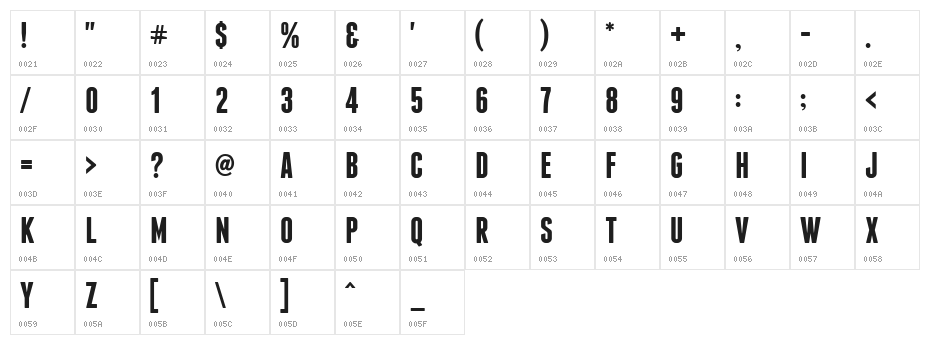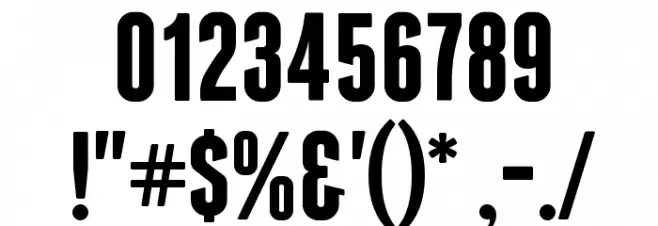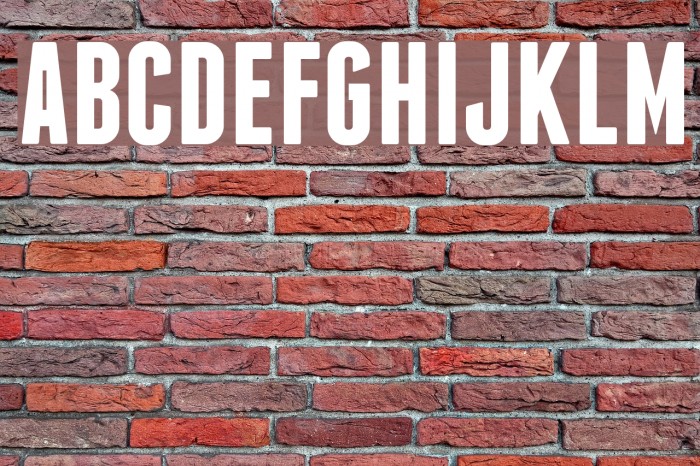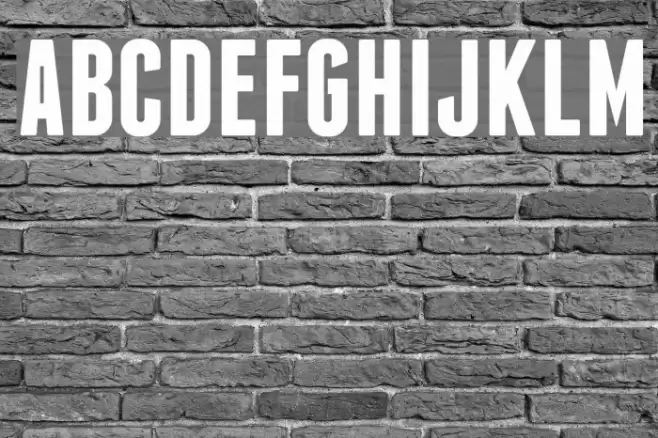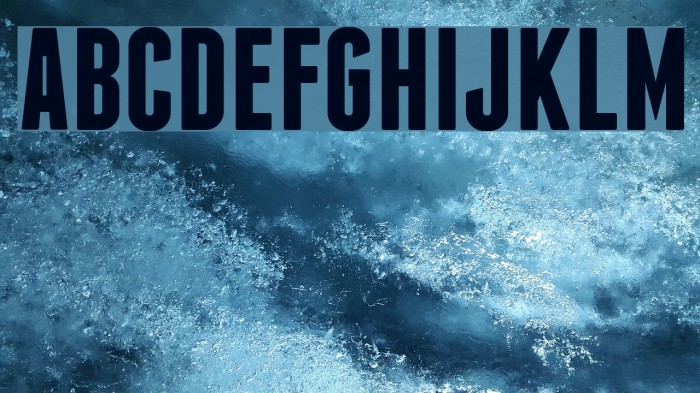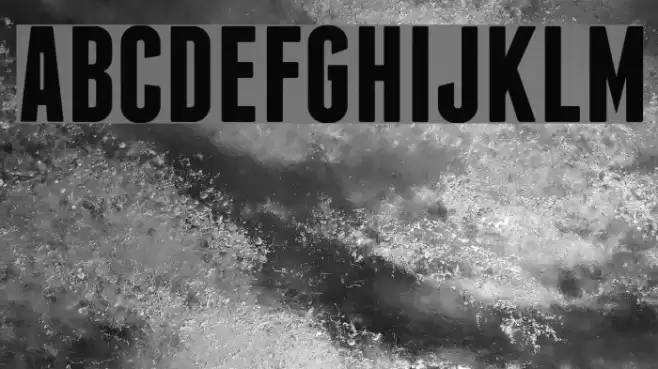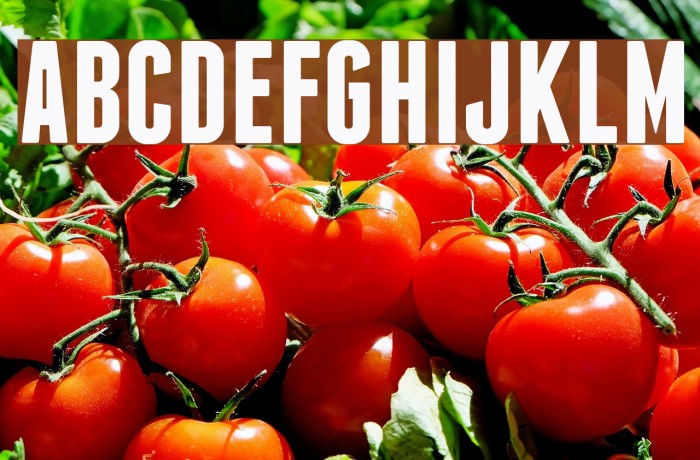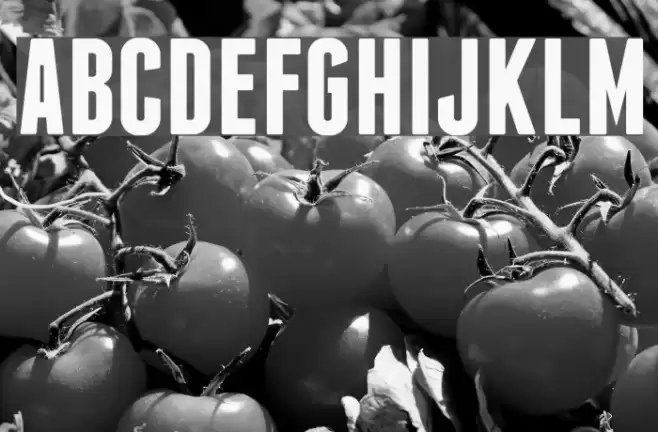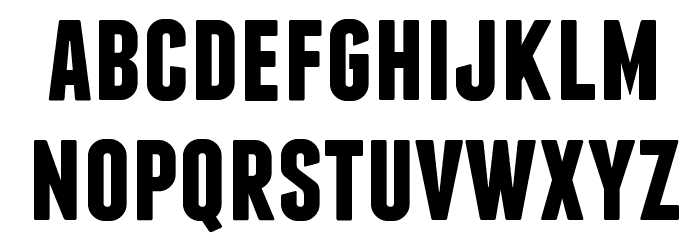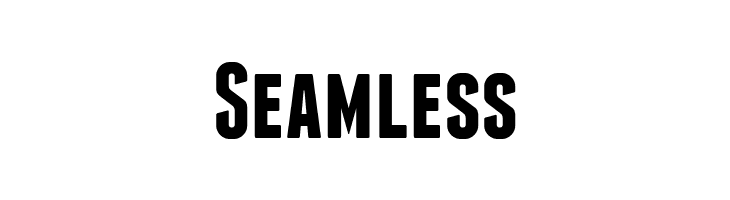
Franchise Bold Font
Franchise Bold Description
This font features a bold, impactful design with strong, clean lines and a modern aesthetic. The uppercase letters are uniform in height, creating a cohesive and structured appearance. The numerals are equally bold, maintaining the font's strong presence. Special characters are designed to match the overall style, ensuring consistency across all elements. The font's bold weight and condensed width make it ideal for attention-grabbing headlines and display purposes.
| Proposed Projects | Ideal for branding, advertising, posters, and any project requiring a strong visual impact. |